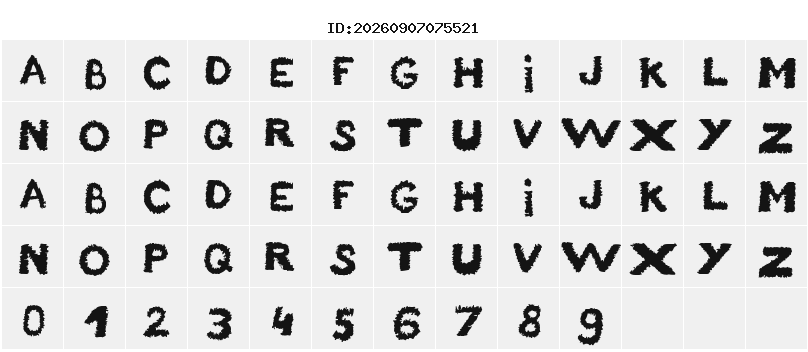
Unstable_raw_release Preview
• Font Name: Unstable_raw_release
• Full Font Name: Unstable_raw_release
• Version: Version 1.00 February 12, 2014, initial release
About Unstable_raw_release.ttf
Unstable_raw_release.ttf is a modern, elegant sans-serif font designed for ultimate readability and visual harmony. Perfect for branding, headlines, web design, and print materials.